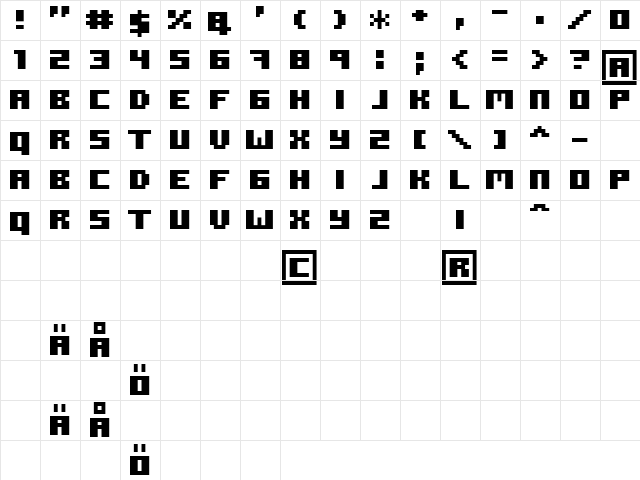
ROTORkeff Bold Regular
Design Context for ROTORkeff Bold Typeface
ROTORkeff Bold takes a measured approach to typography — its balanced proportions and neutral character make it a reliable workhorse for both digital and print work. The heavy weight commands attention and anchors typographic hierarchies.